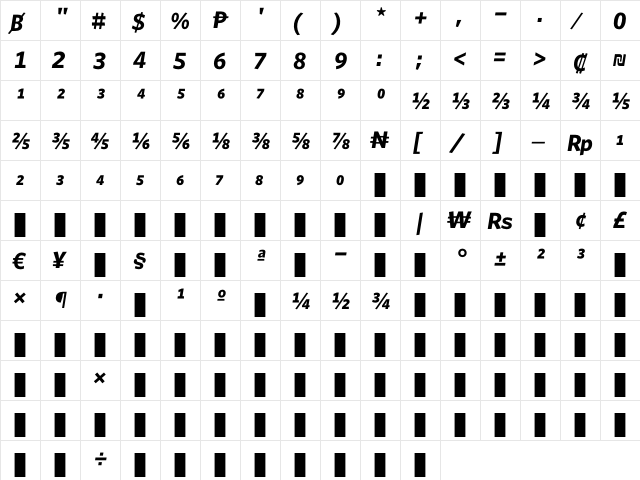
WhitneyNumeric BoldItalic
Design Context for WhitneyNumeric Typeface
WhitneyNumeric offers clean, dependable letterforms without strong stylistic allegiance, making it a practical choice for designers who need flexibility. The dynamic lean of this cut emphasises speed and emphasis in any layout. Its bold stroke weight gives it real presence on the page.
Pro Tip: Use WhitneyNumeric for emphasis, pull quotes, and subheadings where its slanted energy can add rhythm to the layout.